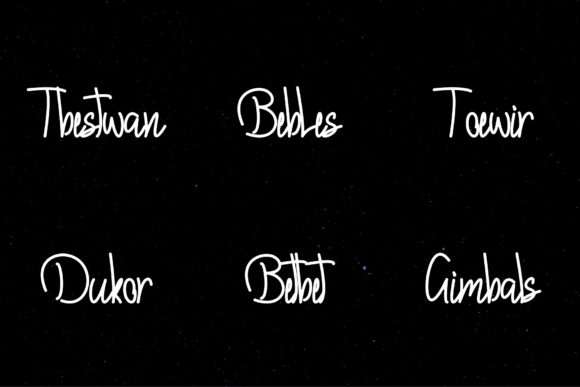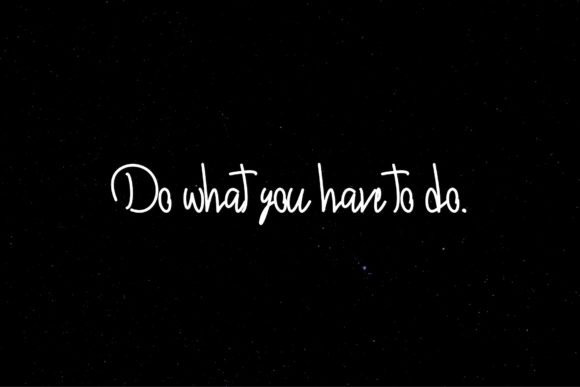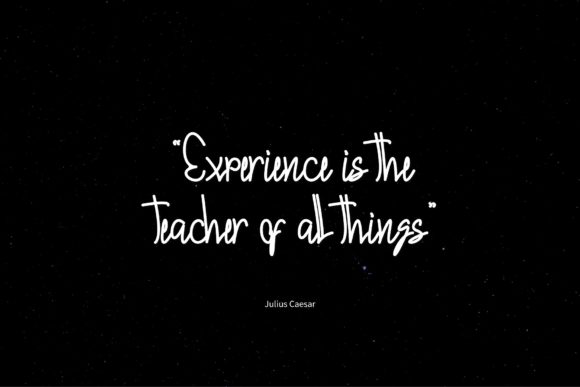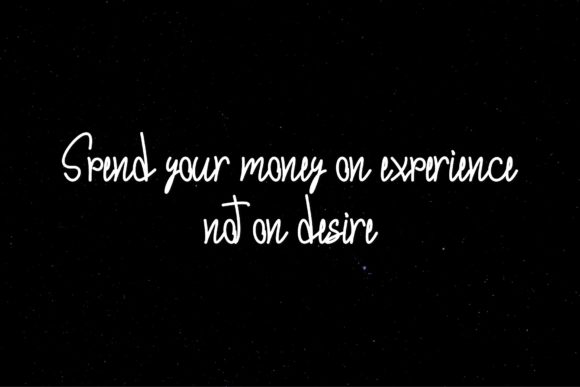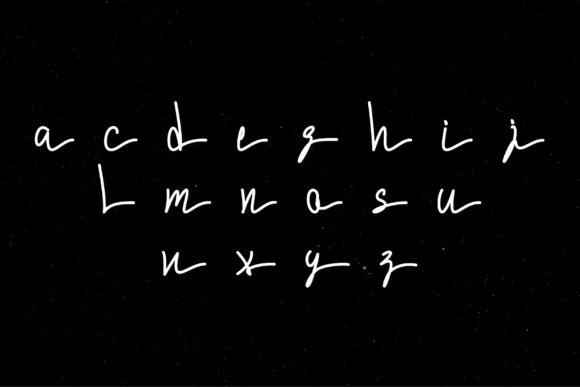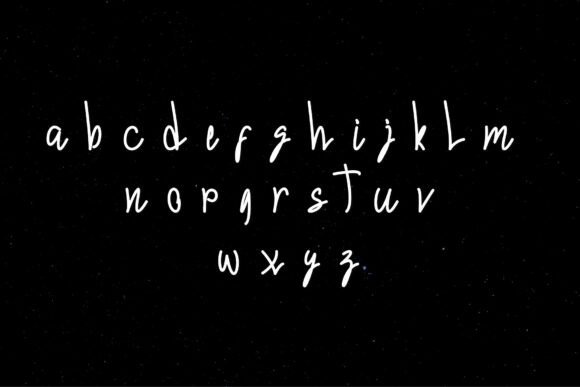
Introduction to Ralexin Font
As a designer, there’s nothing quite like the rush of creating something new and unique. You’re brainstorming ideas, sketching out concepts, and experimenting with different styles until the perfect design emerges. And then, you need the right font to bring it all together. That’s where the Ralexin Font comes in – a high-quality, casual script font that’s perfect for adding a handwritten touch to your creative project.
Whether you’re working on a social media post, advertisement, logo, or product packaging, the Ralexin Font is a valuable resource for designers. Its PUA encoding allows for easy access to all glyphs and swashes, making it a breeze to customize and style. Plus, its versatility means it can be used for a wide range of design needs, from labels and watermarks to wedding designs and product photography.
Key Features of Ralexin Font
- Designed to provide a unique and stylish look, ideal for use in logos, typography, and other design elements.
- Supports a wide range of languages, making it a versatile choice for international design projects.
Honest Review: Ralexin Font
I recently had the opportunity to work with the Ralexin Font for a creative project, and I must say it was a great experience. The font is a high-quality design resource that offers a lot of versatility.
What works well with the Ralexin Font is its modern and sleek design, making it perfect for a wide range of creative projects. It’s also a free download, which is a definite plus. The font is available in a transparent background, making it easy to work with and customize.
- ✨ Modern and sleek design
- ✨ High-quality design resource
However, there are some limitations to the Ralexin Font. The font only comes in a limited number of weights, which may not be suitable for projects that require a wide range of font weights. Additionally, the font may not be suitable for projects that require a lot of customization.
- ⚠️ Limited number of weights
- ⚠️ Limited customization options
Overall, I’m impressed with the Ralexin Font. It’s a great design resource that’s perfect for creative projects. While it has some limitations, I would definitely recommend it to anyone looking for a high-quality font.
Ralexin Font is a high-quality design resource that offers a unique and creative touch to your projects. This font is available for free download and features a transparent background, making it perfect for various design applications.
Tips for Getting the Most Out of Ralexin Font
To maximize the potential of Ralexin Font, try the following tips:
- Combine Ralexin Font with other design elements to create a unique visual identity.
- Use the transparent background feature to create stunning overlays and graphics.
Ralexin Font is perfect for various design projects, including: